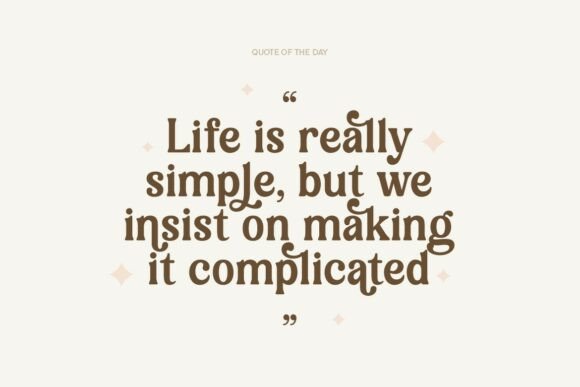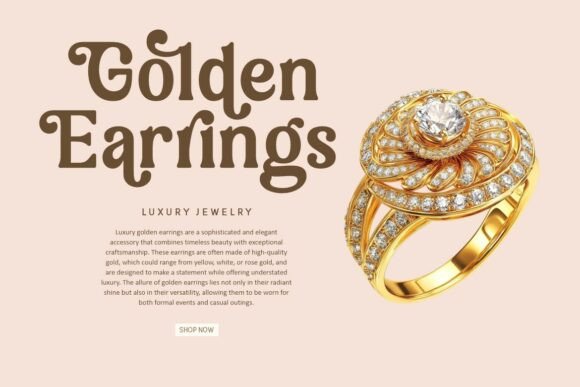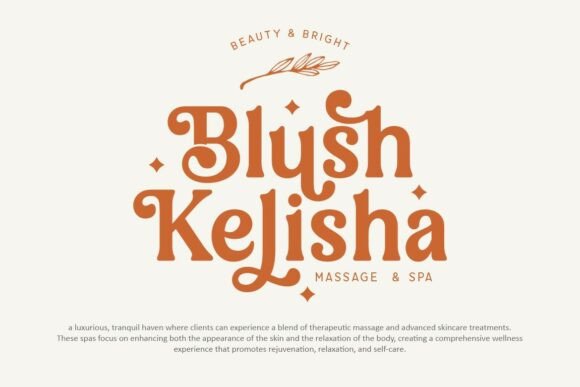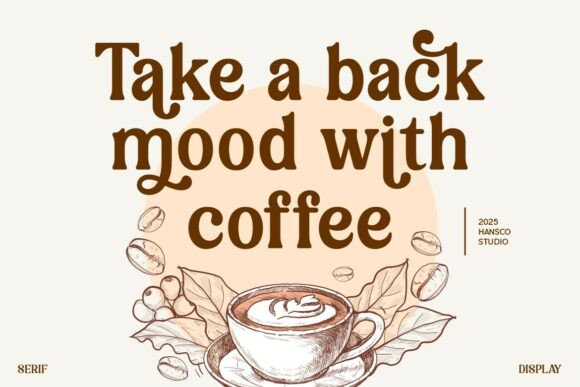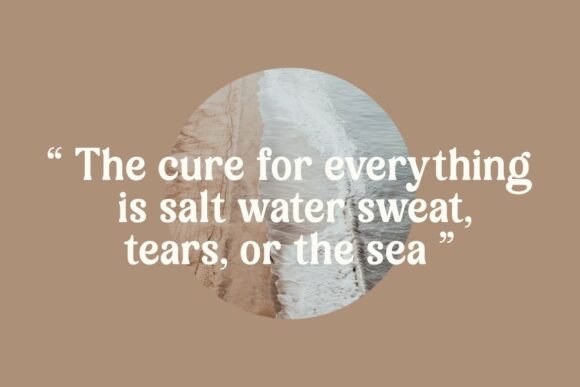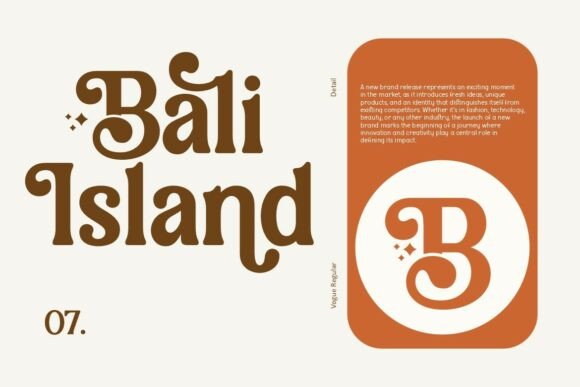
Introduction to Mekuria Salten Otf Font
Have you ever been working on a design project, pouring your heart and soul into it, only to feel like something is missing? A spark of creativity that’s just out of reach, a dash of nostalgia that would elevate your design from good to great? For designers, finding that perfect font can be the game-changer that takes your creative project to the next level.
| 📌 Product Name | Mekuria Salten Otf Font |
| 👤 Author | HansCo |
Enter Mekuria Salten Otf Font, a clean and simple retro serif font that’s about to become your new best friend. With its classic structure and stylish alternative swash characters, this font is the perfect blend of vintage charm and modern flair.
Whether you’re working on a high-quality logo, designing a magazine cover, or creating Instagram content, Mekuria Salten Otf Font is the perfect design resource to add a touch of elegance and sophistication to your work. And the best part? It’s available for free download, making it a valuable addition to any designer’s toolkit.
Key Features of Mekuria Salten Otf Font
- Unique Ethiopian-inspired design, perfect for creative projects requiring a cultural touch
- High-quality, professional font ideal for use in various design resources, including logos, branding materials, and more
- Transparent background, allowing for seamless integration with any design element or background
- Perfect for use in creative projects, including graphic design, digital art, and publishing
- Designed with a high level of detail and precision, resulting in a crisp and clear font at 300 DPI resolution
Honest Review: Mekuria Salten Otf Font
I recently stumbled upon the Mekuria Salten Otf Font, and I must say it’s a fantastic addition to any designer’s toolkit. The font’s unique design and versatility make it a great choice for a wide range of creative projects.
- ✨ High-quality design: The Mekuria Salten Otf Font boasts a professional and sleek appearance that’s perfect for modern designs.
- ✨ Transparent background: The font’s transparent background allows for seamless integration with various design elements.
- ⚠️ Limited font sizes: The Mekuria Salten Otf Font may not be suitable for large-scale or commercial use due to its limited font sizes.
- ⚠️ No bold or italic styles: The font lacks bold and italic styles, which may limit its versatility in certain design scenarios.
Overall, the Mekuria Salten Otf Font is a valuable design resource that can elevate any creative project. While it may have some limitations, its unique design and high-quality appearance make it a great choice for designers looking for a free, professional font.
Mekuria Salten Otf Font
The Mekuria Salten Otf Font is a high-quality design resource ideal for creative projects. It offers a unique aesthetic that can elevate your visual content and make it stand out.
Tips for Getting the Most Out of Mekuria Salten Otf Font
Use the font in conjunction with other design elements to create a cohesive look. Experiment with different font sizes and colors to achieve the desired effect. Consider using the font’s transparent background feature to create visually appealing designs.
The Mekuria Salten Otf Font is ideal for use in a variety of creative projects, including graphic design, typography, and branding. It’s also suitable for use in presentations, documents, and social media graphics.
Is the Mekuria Salten Otf Font suitable for use with a transparent background?
Yes, the Mekuria Salten Otf Font is designed to be used with a transparent background, making it ideal for creative projects that require a high level of design flexibility. You can easily use the font with a transparent background in design applications like Adobe Illustrator or Photoshop.